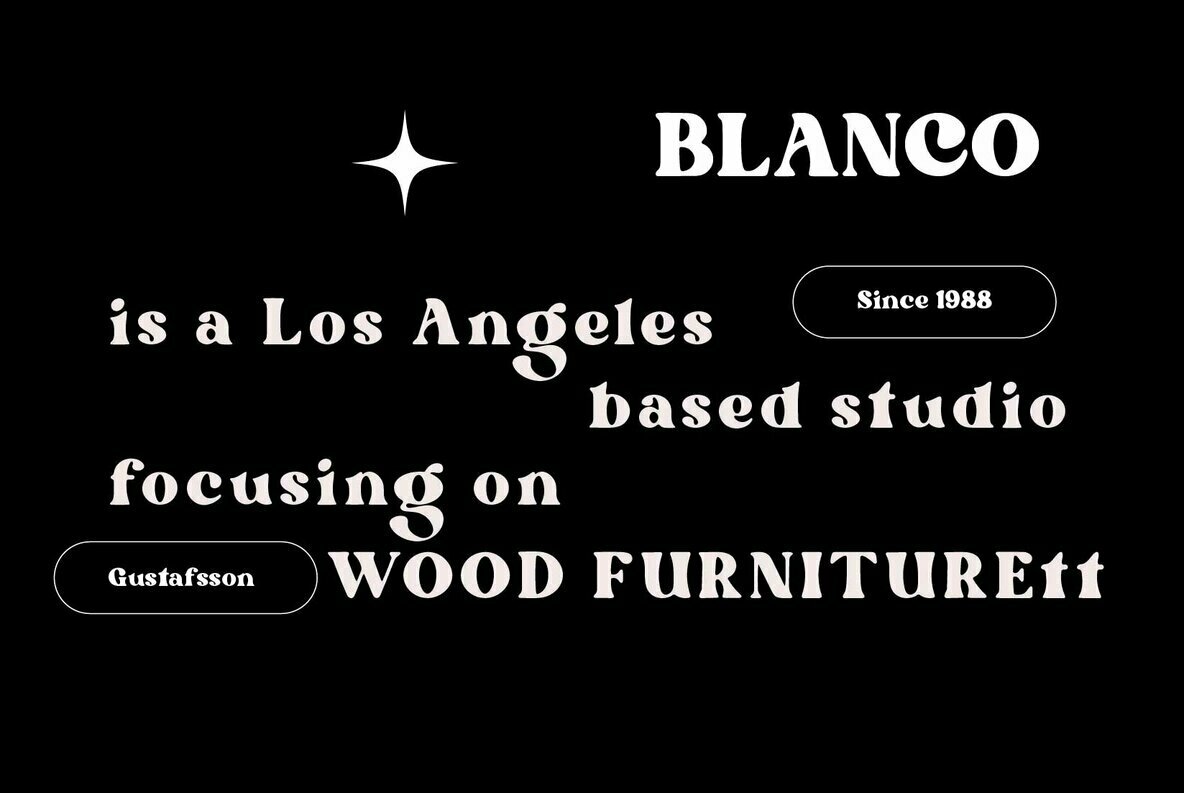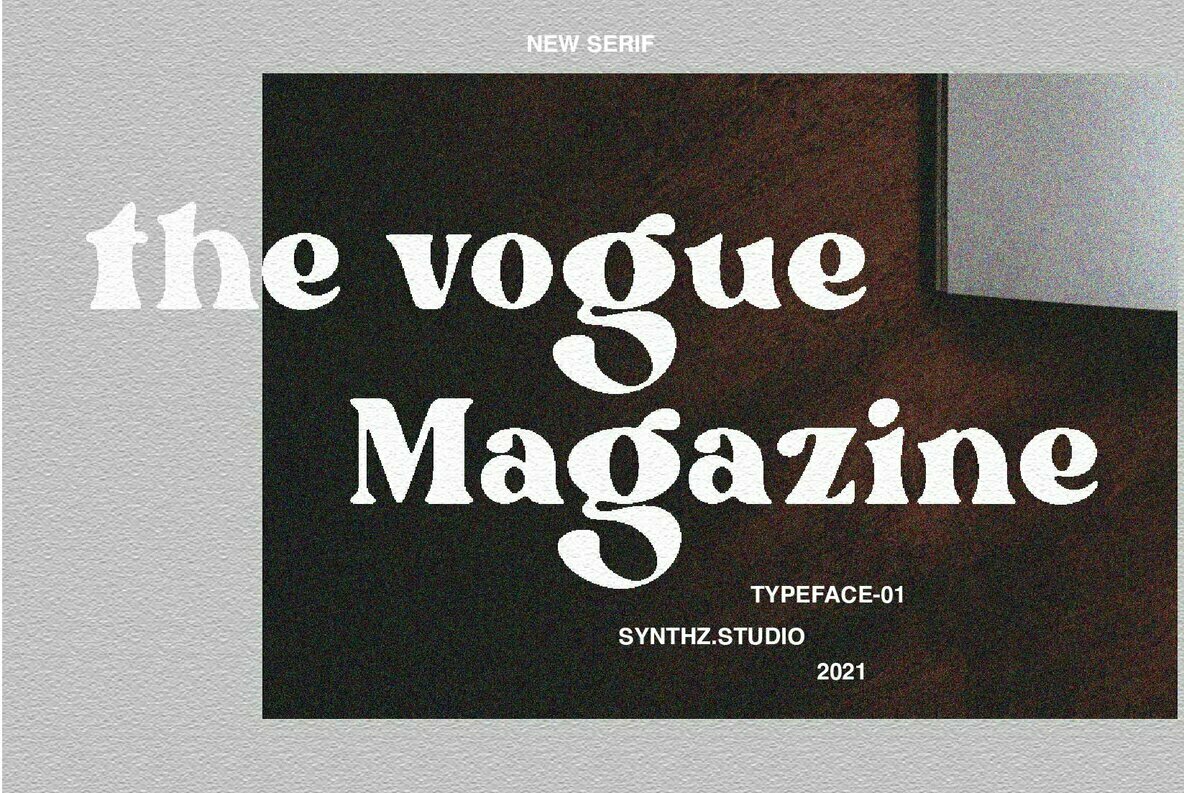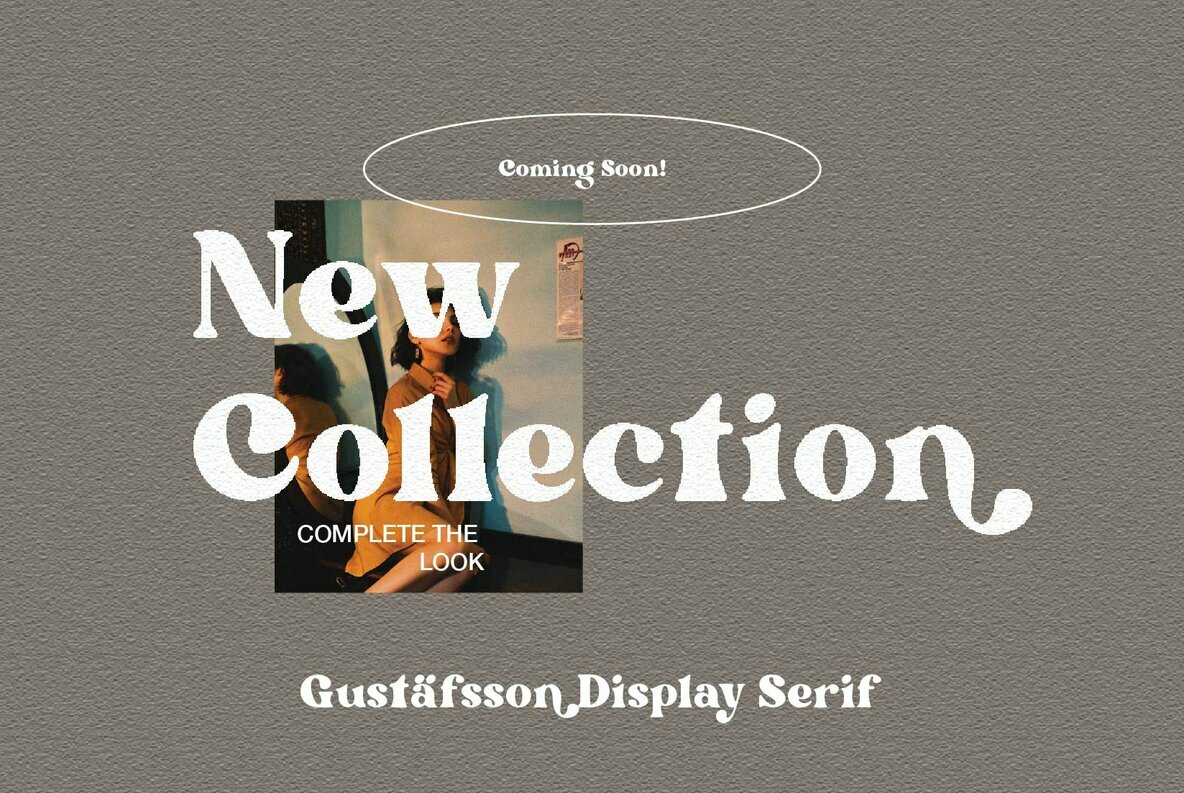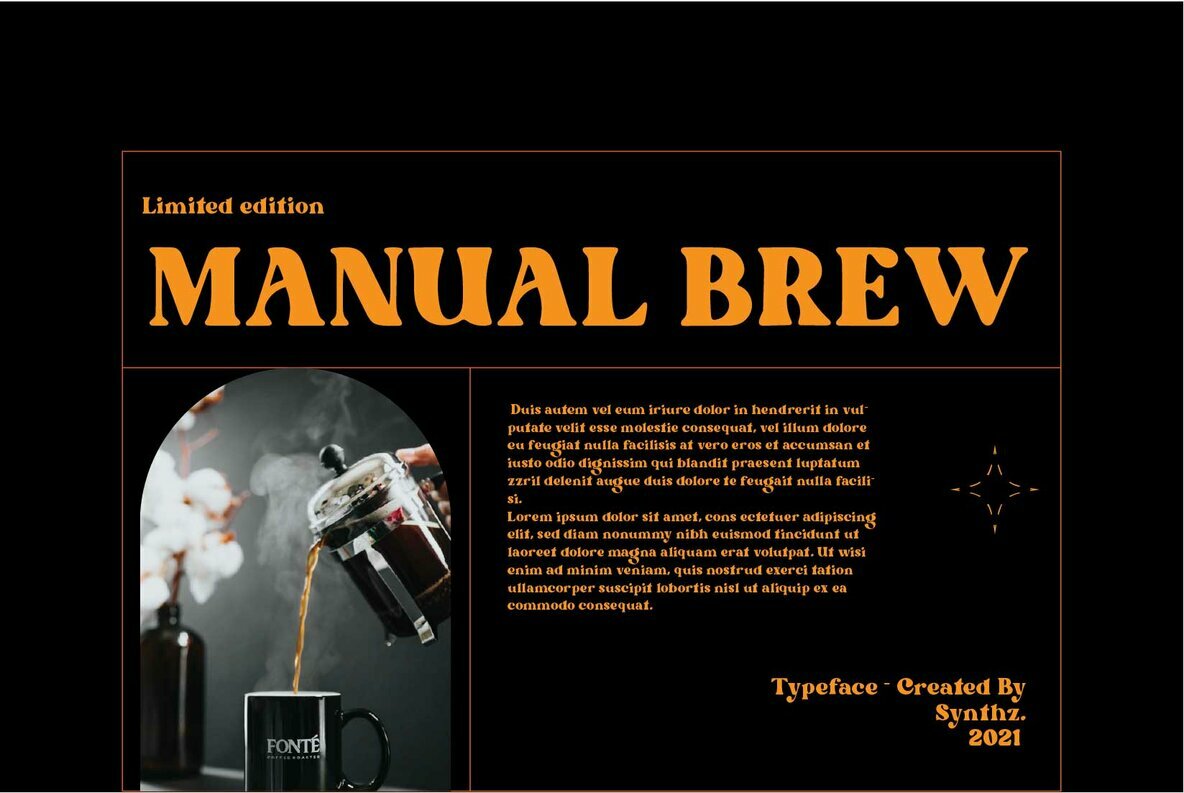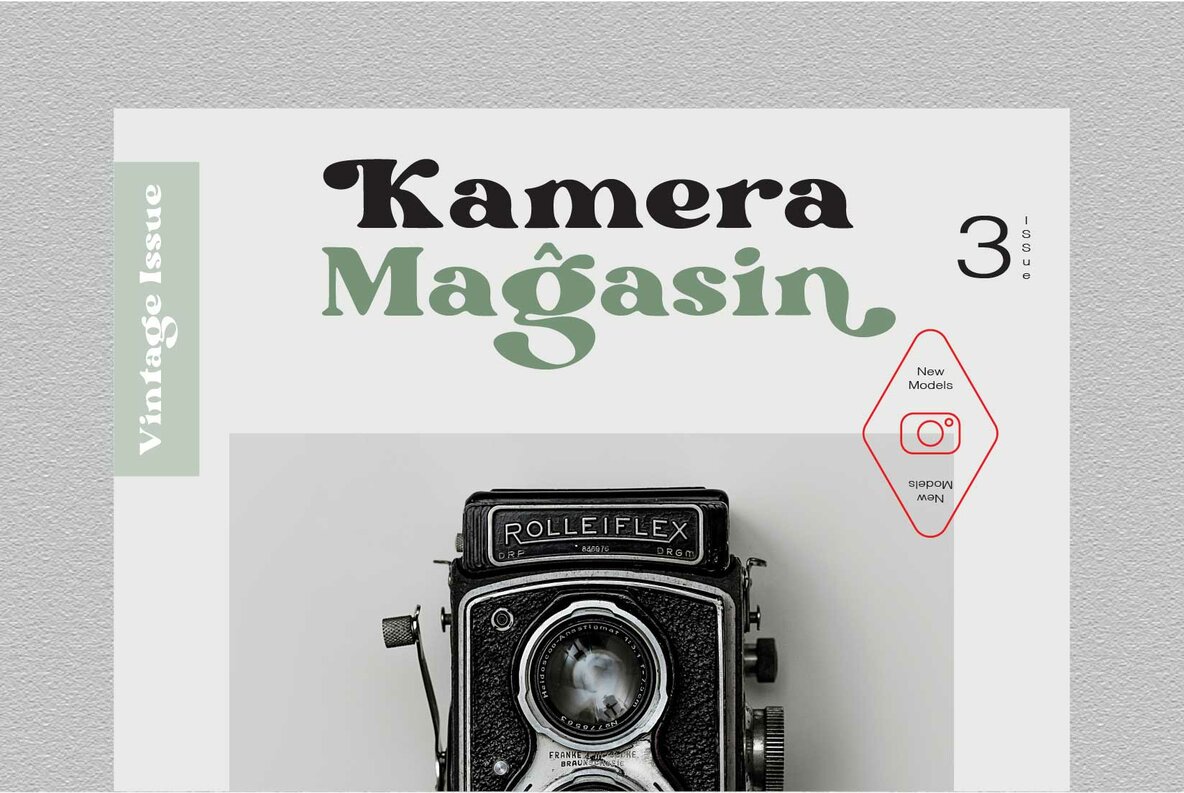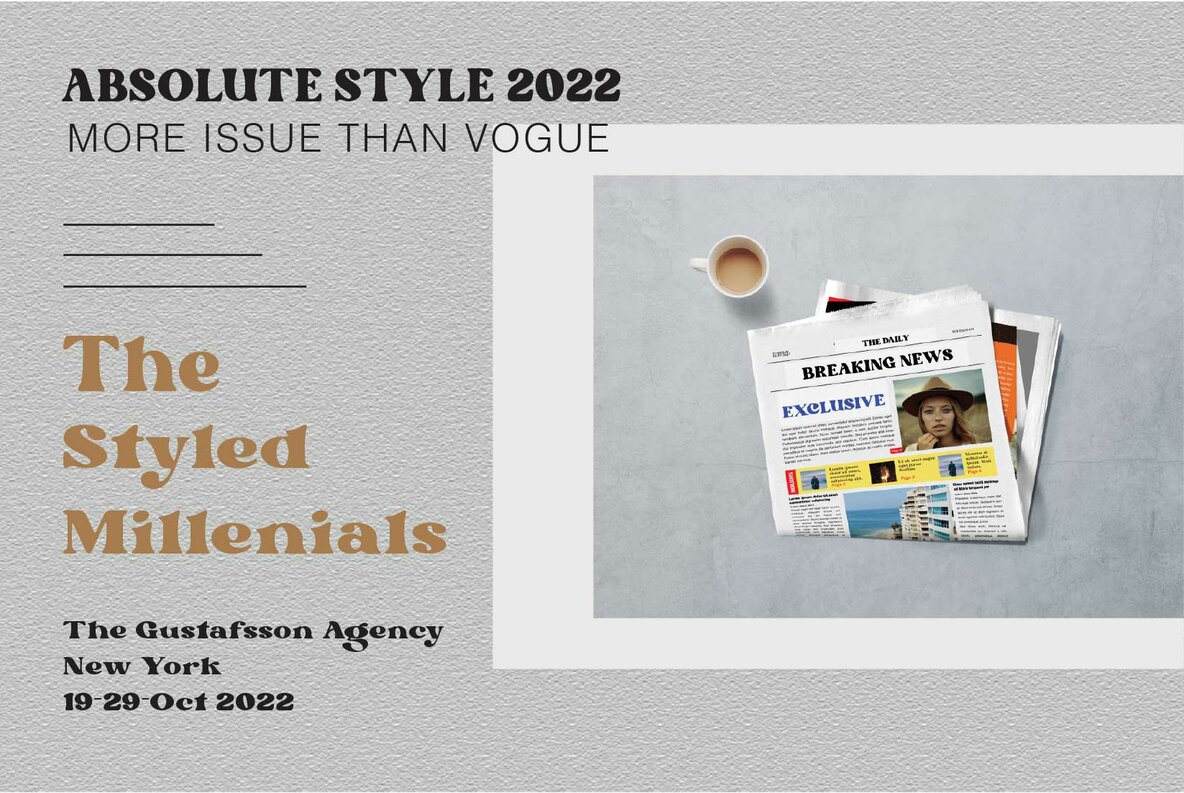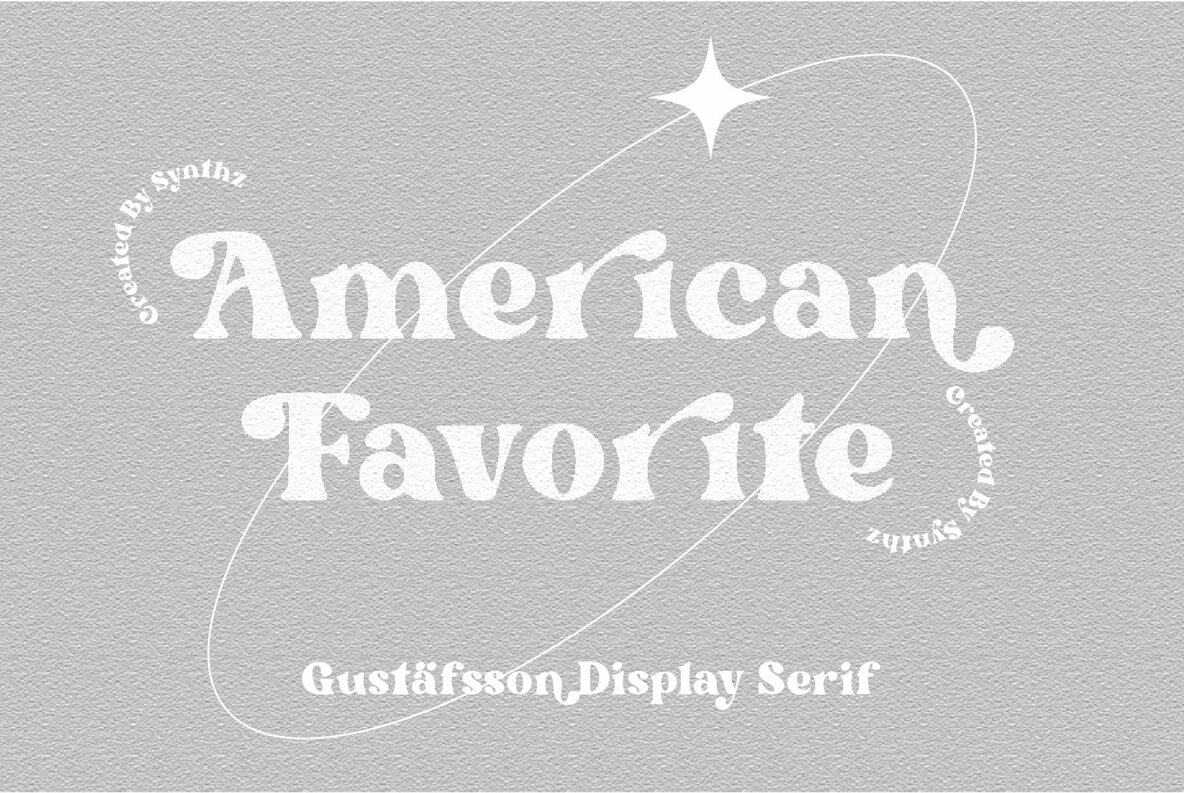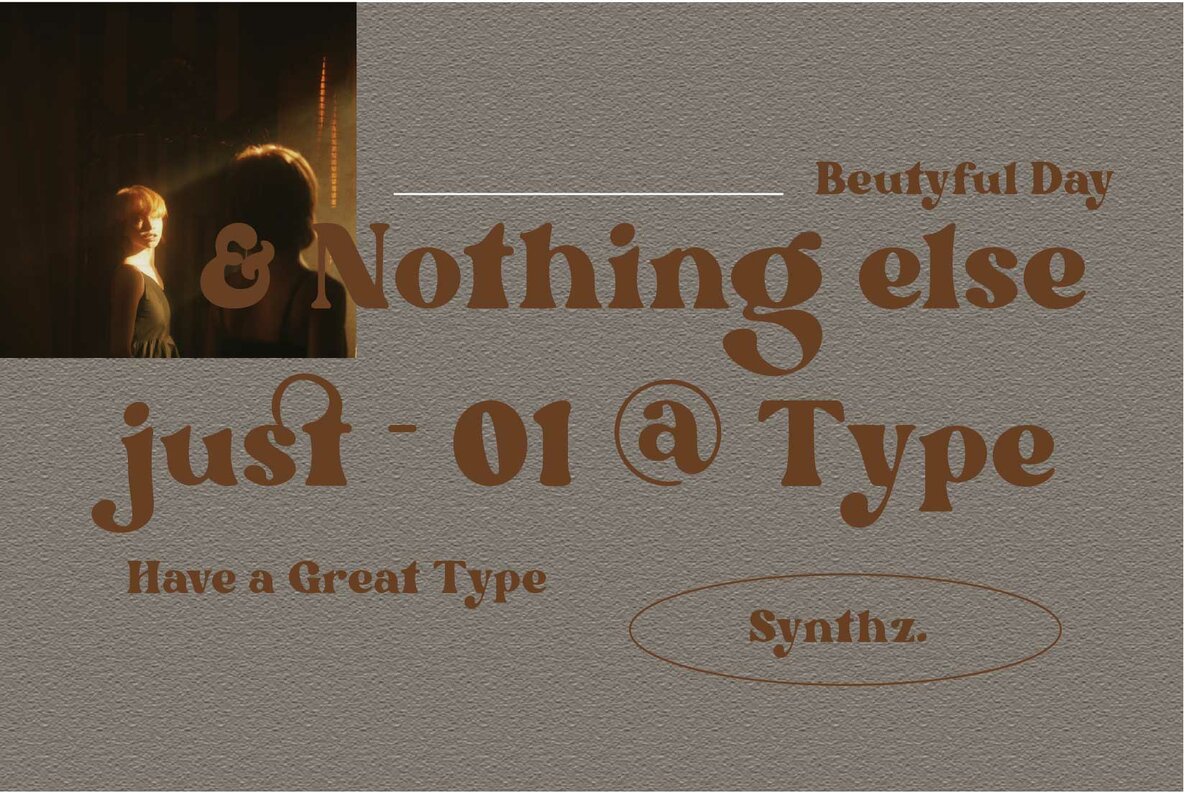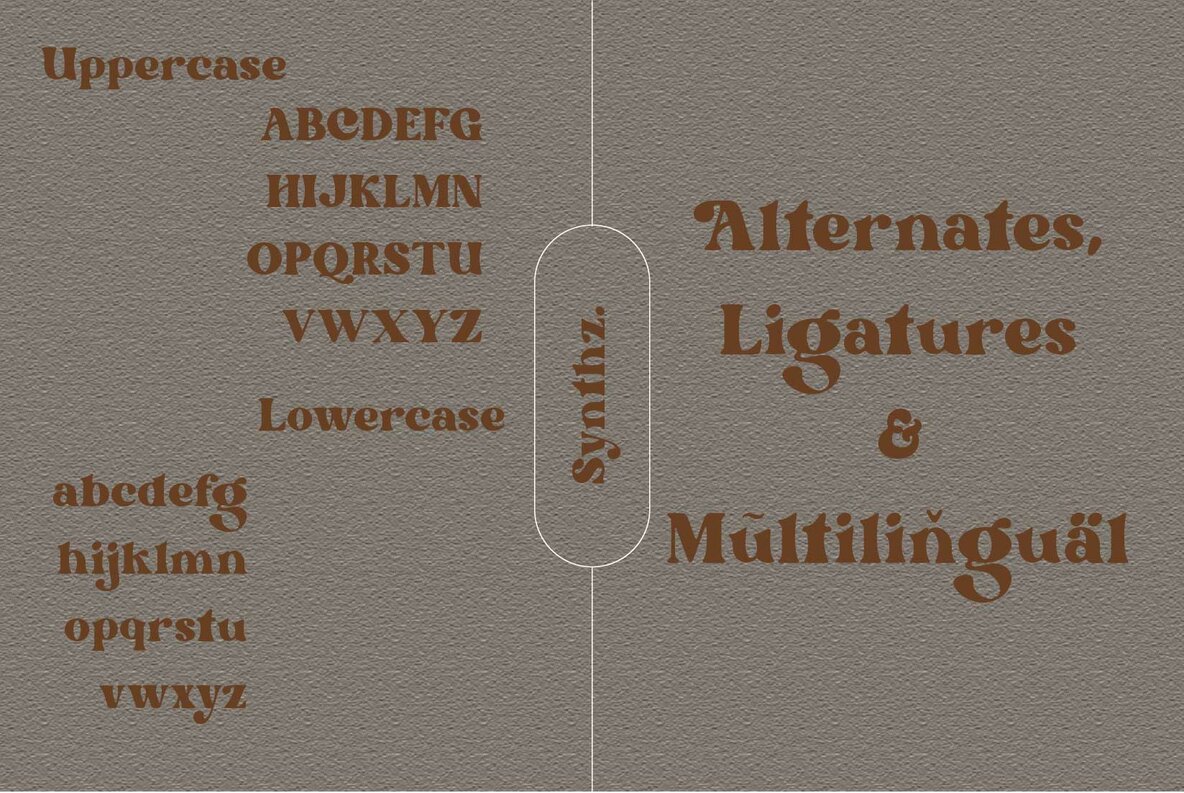
Gustafsson Font
Gustafsson Regular
Gustafsson embodies a bold and chic aesthetic, making it a trendy choice for discerning designers. Its unique letter shapes provide an imposing presence, lending a distinctive touch to any creative endeavor.Gustafsson: Bold Serif with a Chic Edge